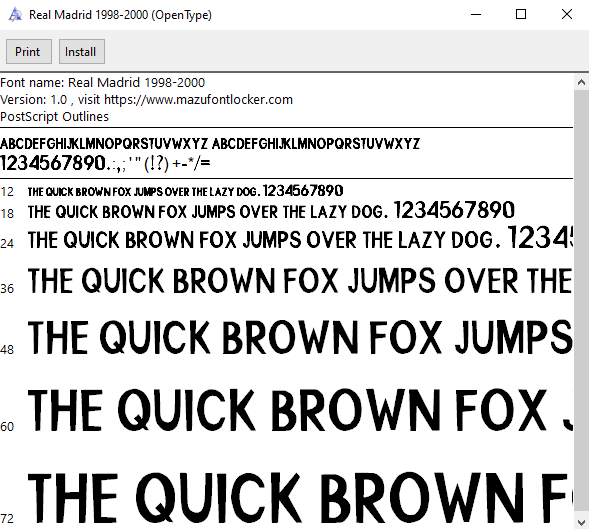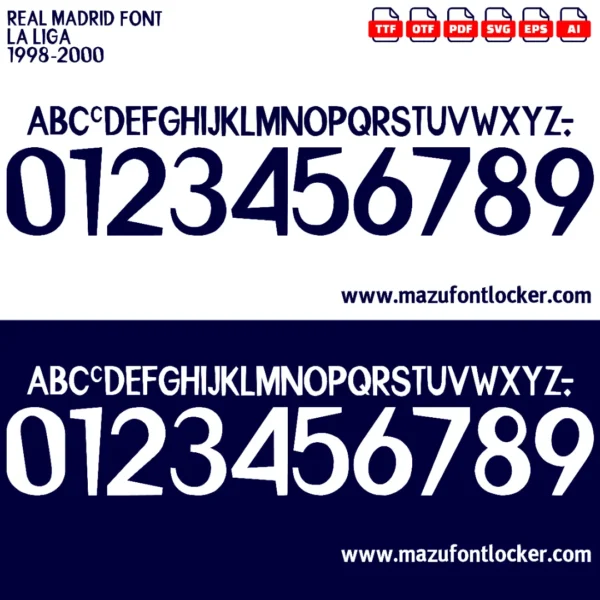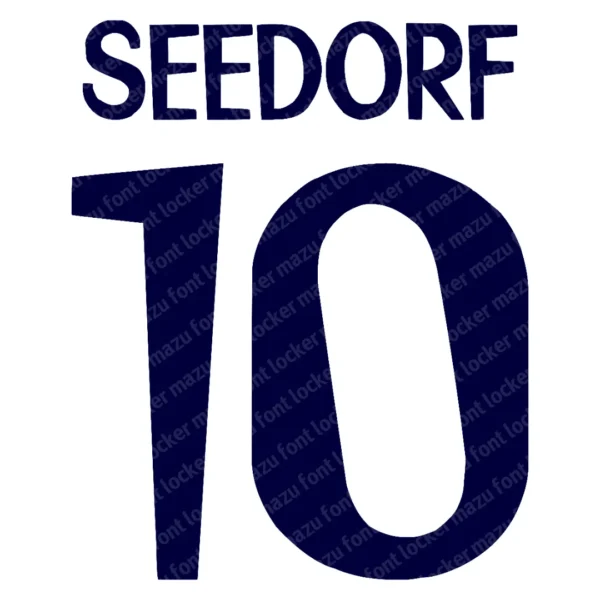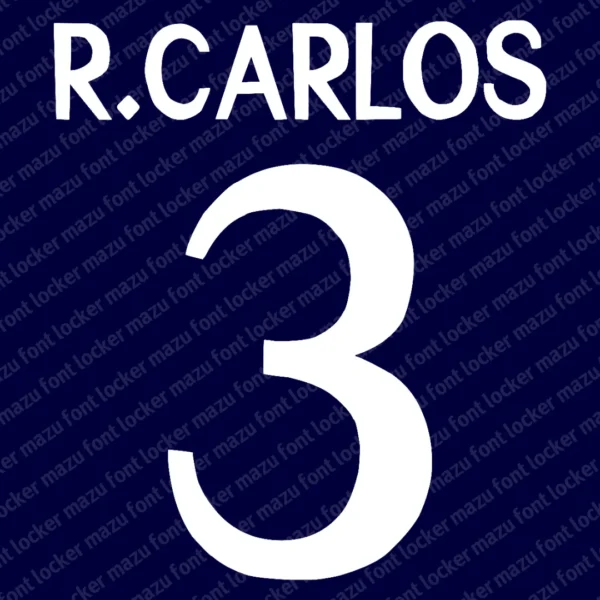
Real Madrid 1998-2000 Font Vector – Stunning Bold & Dynamic Typeface
The Real Madrid 1998-2000 Font Vector is a premium typeface that accurately recreates the distinctive match lettering associated with Real Madrid during the 1998-2000 football seasons. This high-quality vector font kit captures the bold, clean, and instantly recognizable typography that perfectly complements the club’s iconic identity during one of its most successful modern eras.
This font stands out thanks to its precise vector construction and authentic club-inspired styling. Every letter and numeral has been meticulously recreated to match the distinctive football lettering aesthetic associated with Real Madrid during the 1998-2000 period and its domestic and European campaigns. Whether you’re producing professional football kit templates, custom jersey concepts, or eye-catching football content, the Real Madrid 1998-2000 Font Vector delivers a genuine match-ready appearance inspired by the identity of the world’s most successful football club.
The lettering featured in the Real Madrid 1998-2000 Font Vector combines clean geometric lines with bold modern proportions. The result is a premium and highly readable typeface that reflects the proud football heritage of Real Madrid, its global fanbase, and the unique character of Spanish and European football culture.
• Complete uppercase A–Z alphabet and numbers 0–9 in authentic Real Madrid 1998-2000 inspired style